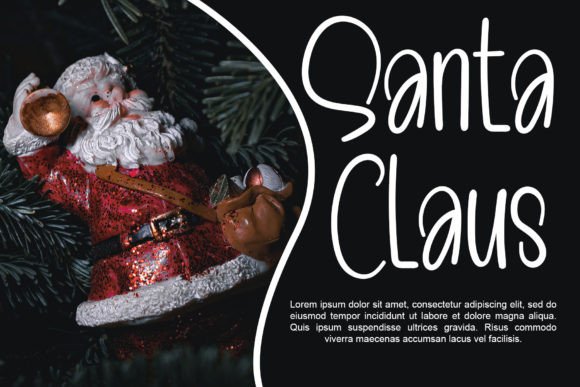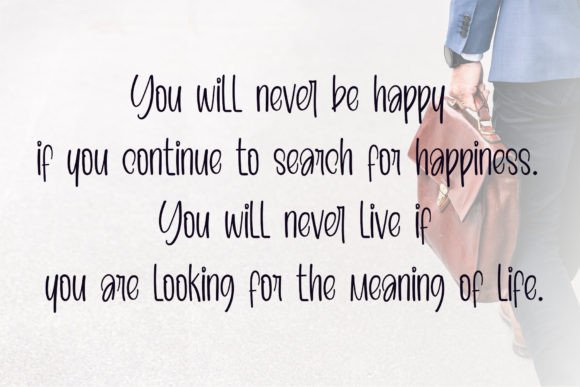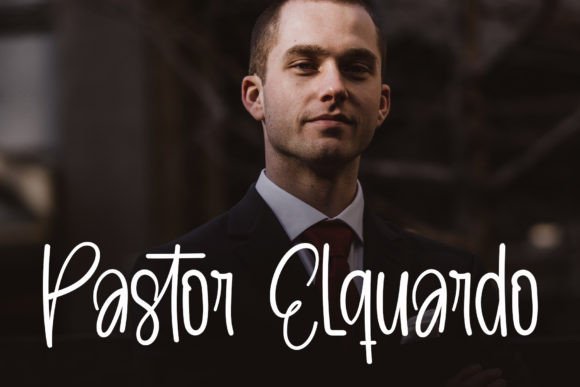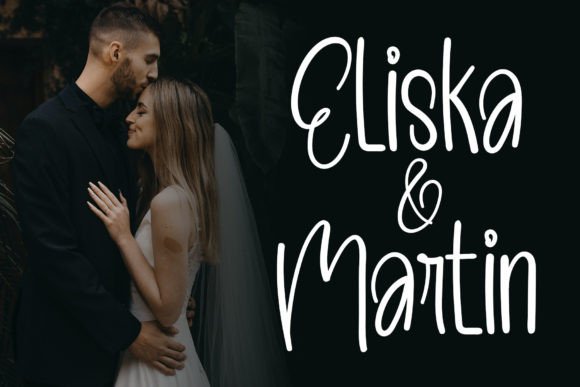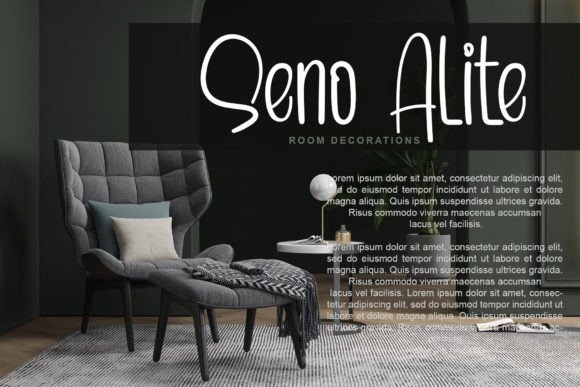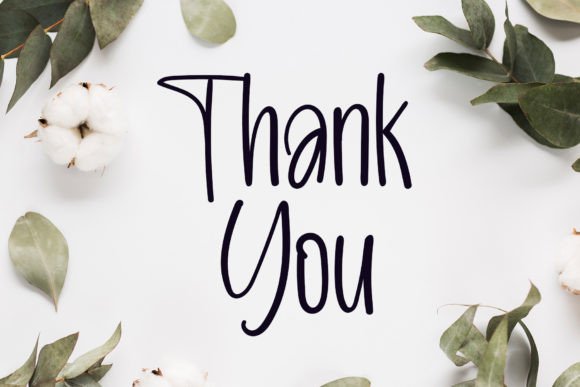
Introduction to Perfectly Christmas Font
It’s the most wonderful time of the year – Christmas is just around the corner, and with it comes the perfect excuse to get creative with our designs. You’re browsing through your favorite design resource, searching for the perfect font to make your holiday project shine. And then, you stumble upon it – the Perfectly Christmas Font, a charming handwritten font that screams festive cheer.
As a designer, you know how crucial it is to have the right design resource at your fingertips. And with the Perfectly Christmas Font, you’re in for a treat. This high-quality font is not just perfect for Christmas-themed projects, but its characterful touch can elevate any creative project, from wedding invitations to social media graphics.
With its transparent background and PUA encoded glyphs, this font is a free download that’s sure to make your designs stand out. So, why settle for anything less when you can have the Perfectly Christmas Font to add that extra magic to your holiday designs?
Key Features of Perfectly Christmas Font
- Unique and festive design perfect for creative projects, holiday cards, and festive advertisements.
- High-quality design resource with a transparent background, ideal for digital use.
Honest Review: Perfectly Christmas Font
As a designer, I’m always on the lookout for high-quality design resources to elevate my creative projects. The Perfectly Christmas Font caught my attention with its unique, festive aesthetic. I was excited to dive in and see if it lived up to its promise.
- ✨ Unique and creative design that captures the essence of Christmas
- ✨ High-quality vector graphics that print well in various sizes
- ✨ Transparent background option for easy customization
- ⚠️ Limited character set, which may not be ideal for longer text-based projects
- ⚠️ Some letters may require manual tweaking to achieve perfect alignment
Overall, I’m impressed with the Perfectly Christmas Font’s potential to add a touch of holiday magic to any design project. While it may have some limitations, its unique design and high-quality graphics make it a valuable resource for designers looking to create something special.
Tips for Getting the Most Out of Perfectly Christmas Font
For the best results, use the Perfectly Christmas Font in conjunction with a high-quality image or design element. You can also experiment with different font sizes and colors to create a unique look.
Common Use Cases for Perfectly Christmas Font
The Perfectly Christmas Font is perfect for holiday cards, invitations, and other seasonal designs. You can also use it for social media graphics, blog posts, and other online content.